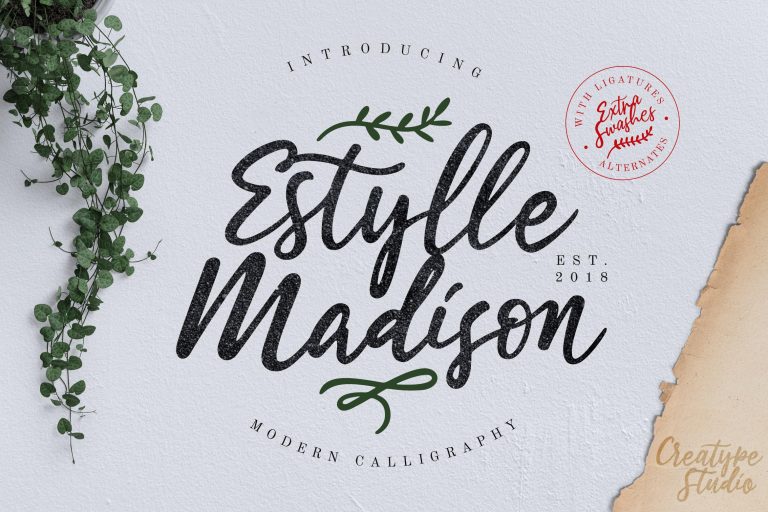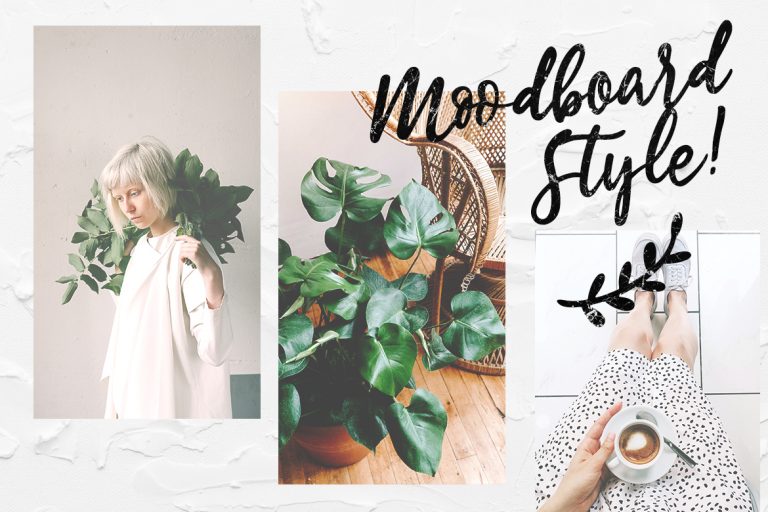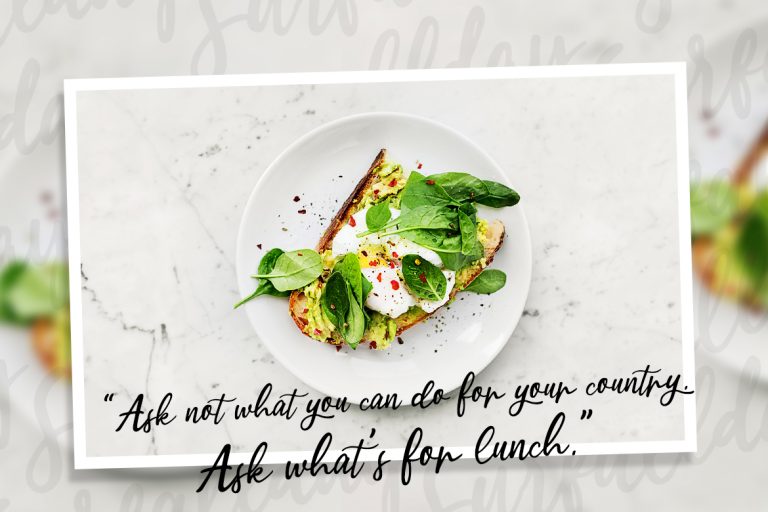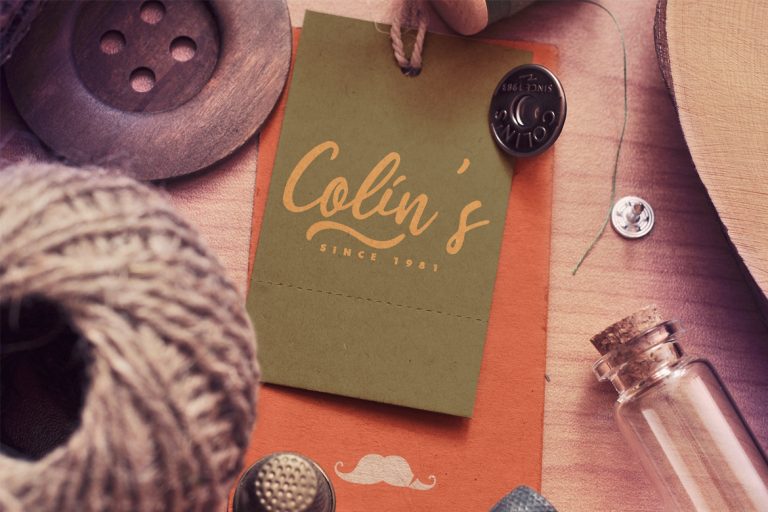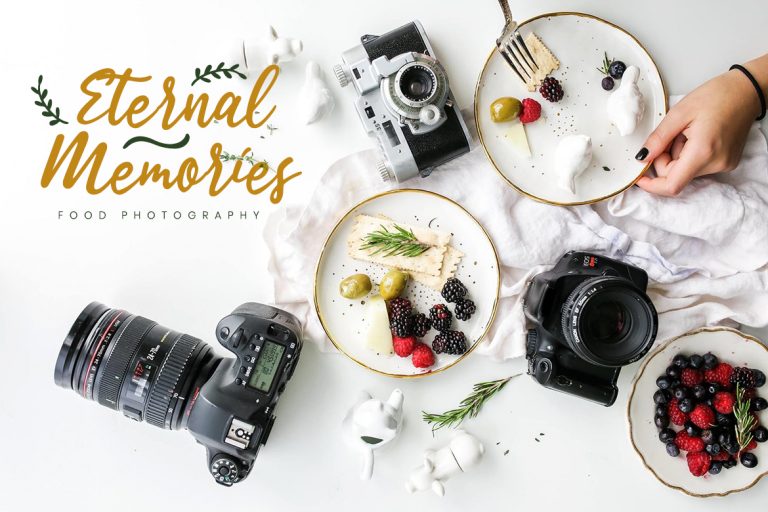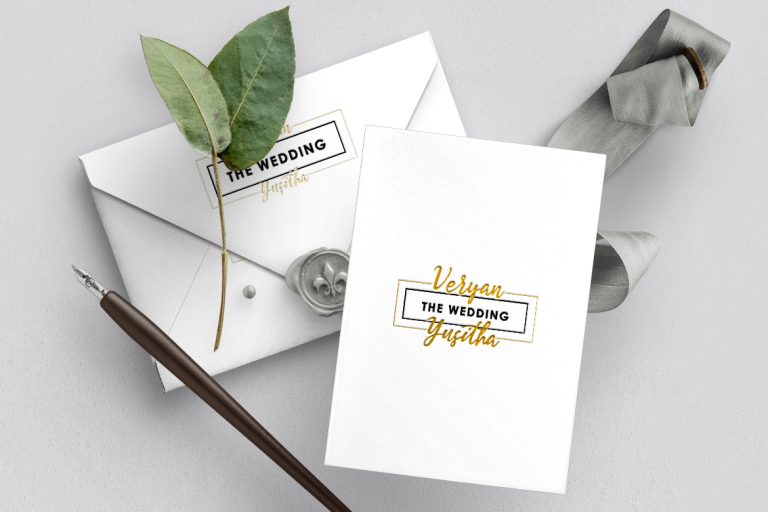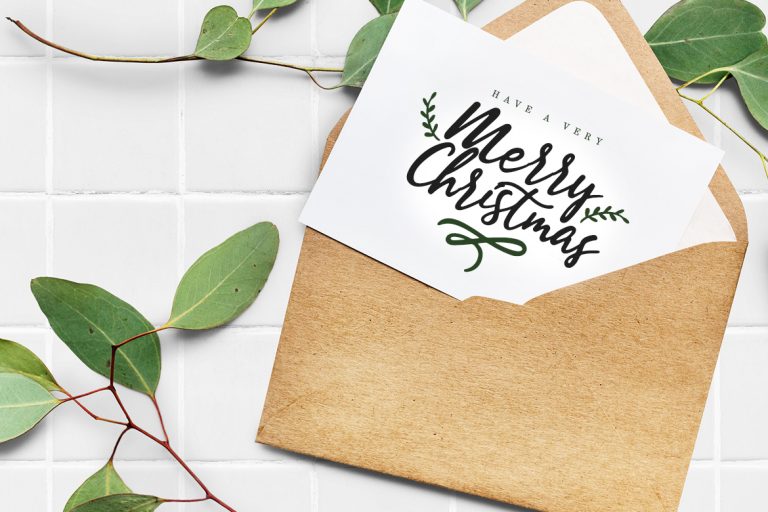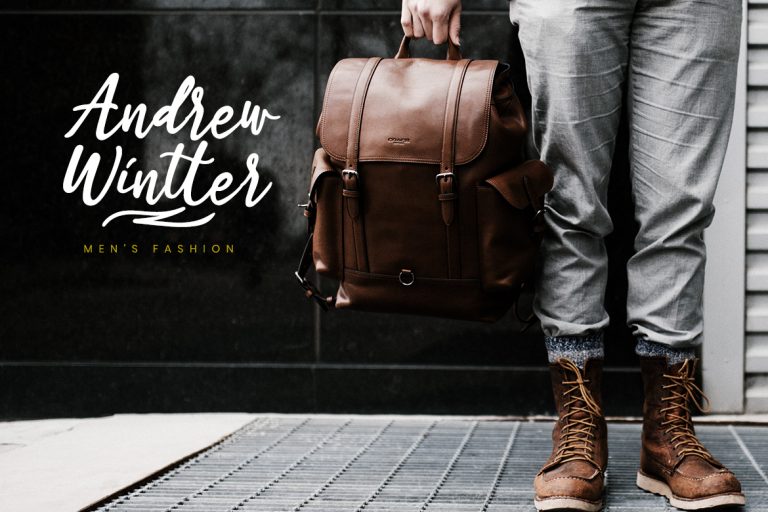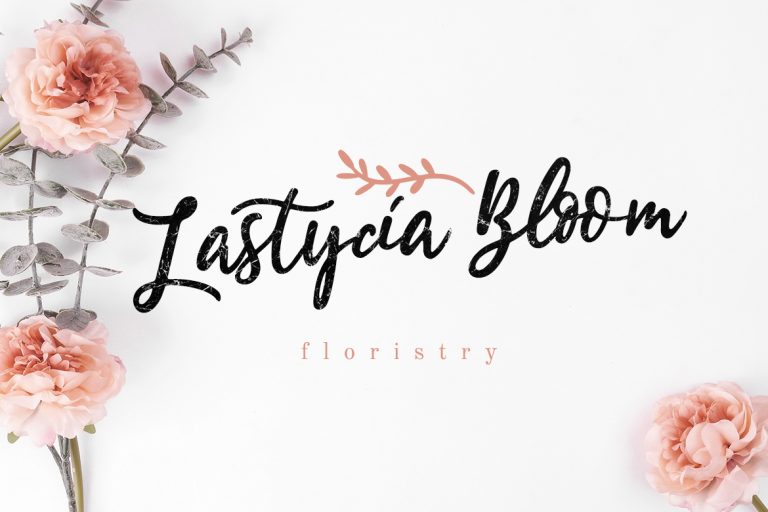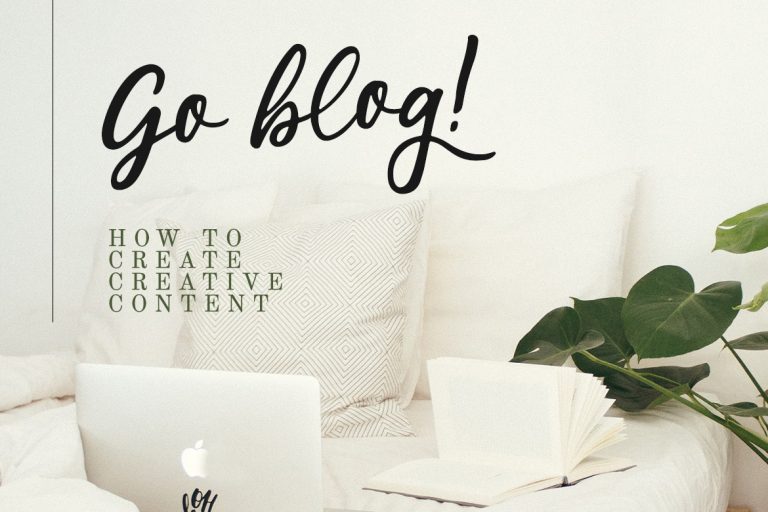
Estylle Madison Calligraphy
Estylle Madison is classy, elegant and super stylish modern calligraphy with natural handwritten movement.
Estylle Madison is perfect for photography, watermark, social media posts, advertisements, logos & branding, invitation, product designs, label, stationery, wedding designs, product packaging, special events or anything that need handwriting taste.
- Ton of glyphs (include Uppercase, Lowercase, Numerals & Punctuations, Ligature, Swashes)
- Ligature & Stylistic alternate